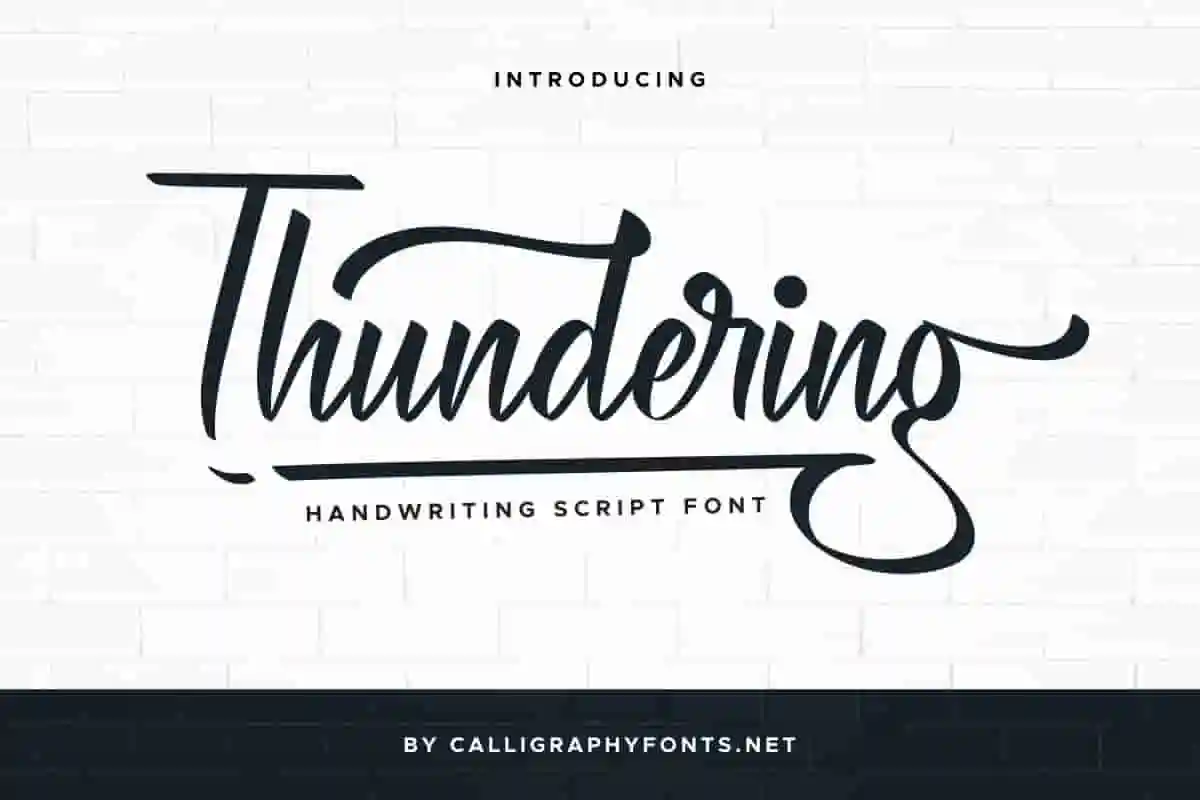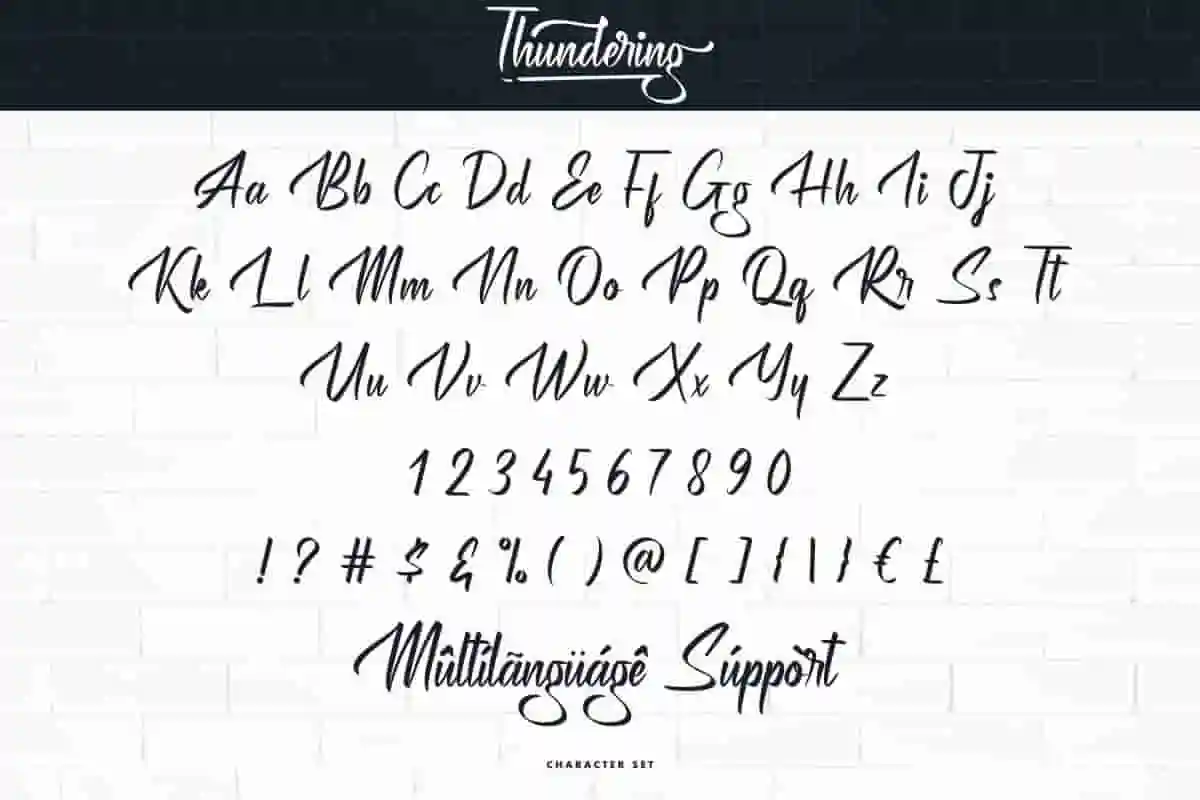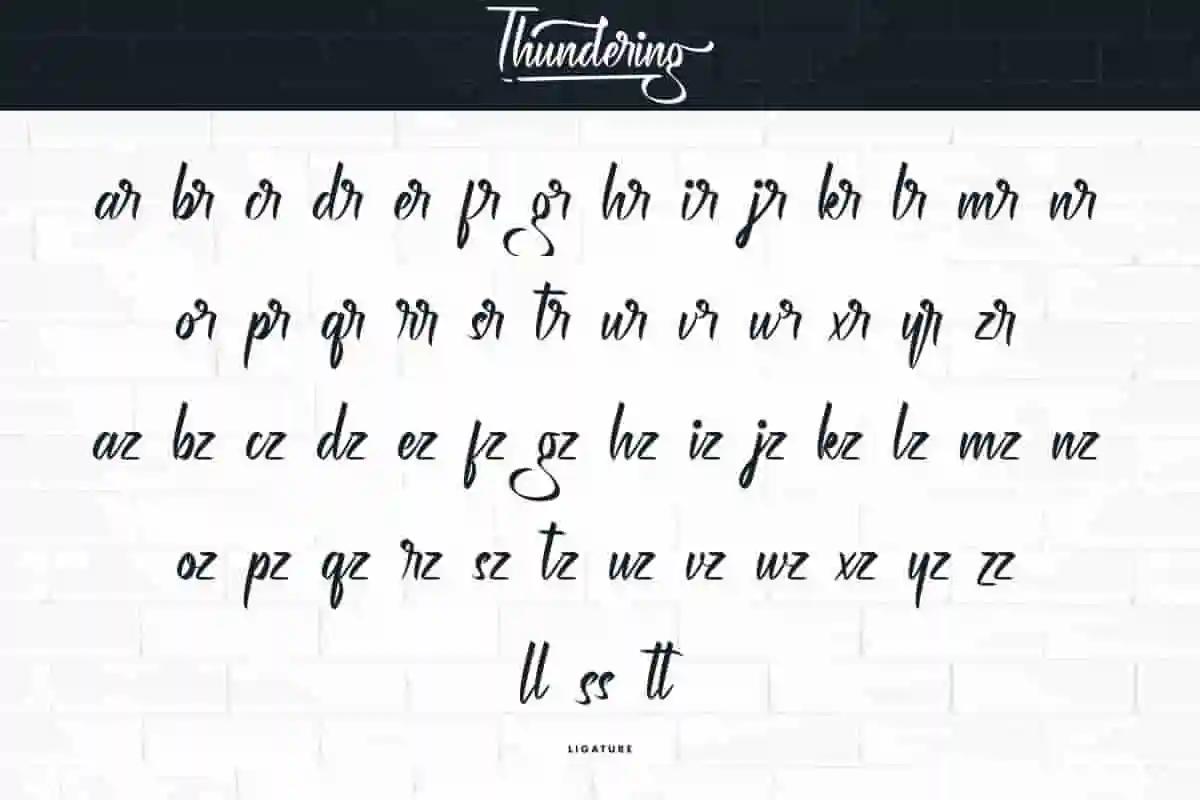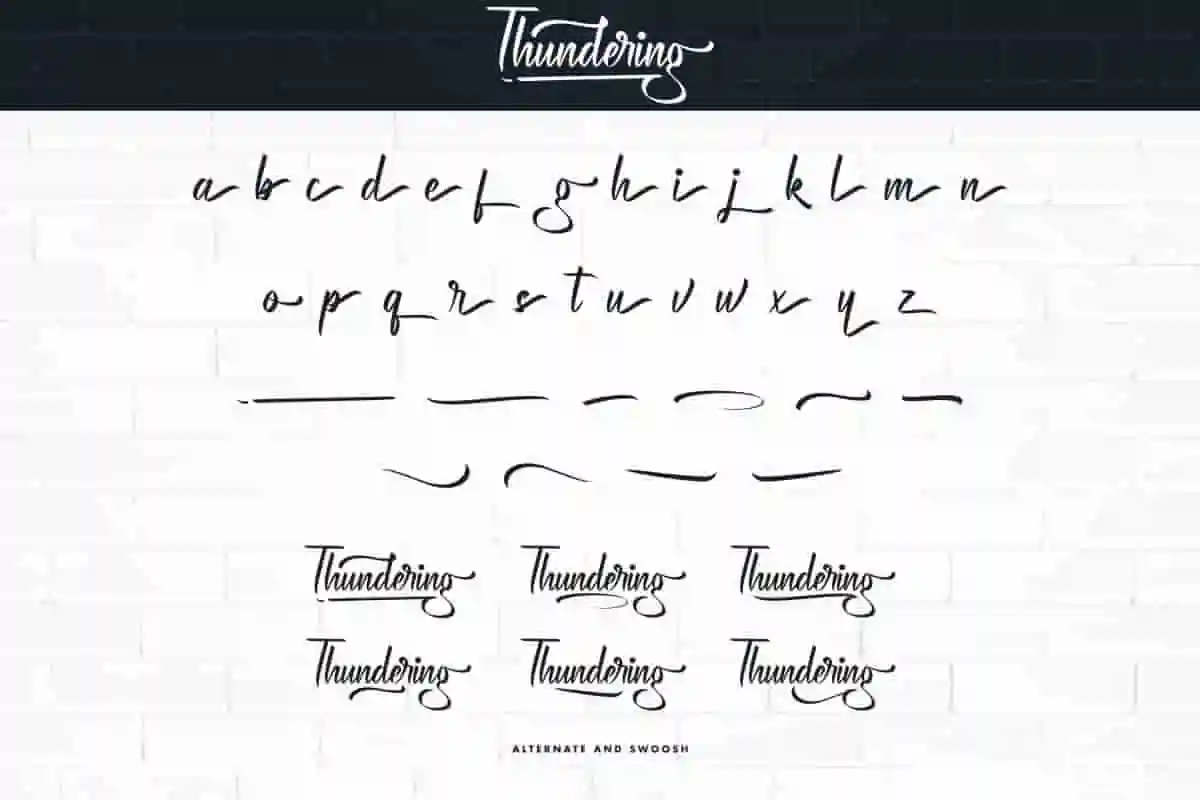
Thundering Font
Thundering Font by CalligraphyFonts.net, a handmade brush calligraphy font.
Thundering is an original handmade brush calligraphy font. The style of this font are stylish, classic, elegant, luxury and strong brush font.